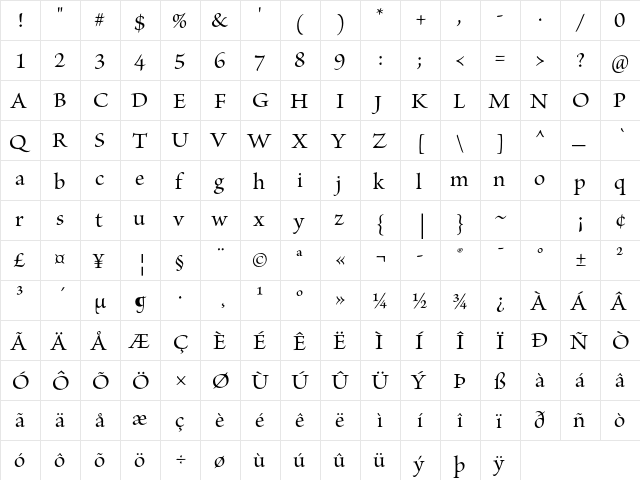
Brioso Pro Medium Subhead
| Designer | Robert Slimbach |
Design Context for Brioso Pro Typeface
Brioso Pro is a composed and adaptable typeface that performs quietly and consistently across a wide range of design contexts.